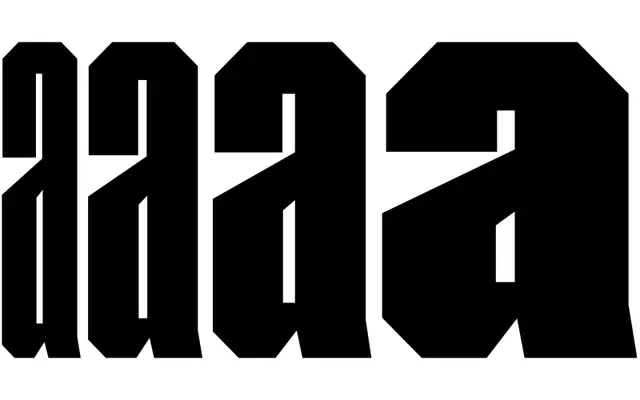
Bisel specimen from The Designers Foundry
A single-weight display family in four widths, drawing on condensed European and American type traditions associated with Herb Lubalin and Walter Haettenschweiler.
Designed by Fase Studio between 2022 and 2023, it blends features from several classic condensed typefaces into something with a predominantly mechanical character, offset by subtle irregularities that keep it from feeling cold. The family runs from Black to Black XXCondensed and is also available as a variable font with a width axis, supported by standard ligatures, case-sensitive forms and a squared stylistic set. Extended Latin coverage makes it suitable for a broad range of European languages.
A single-weight display typeface available in four widths from Regular to XXCondensed, drawing on classic condensed display types in the tradition of Lubalin and Haettenschweiler. Its mechanical character and headline-focused design place it firmly in the display category.